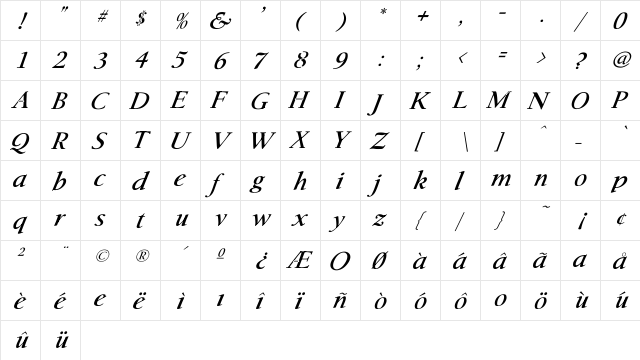
RSJacksonville ITALIC Italic
Design Context for RSJacksonville ITALIC Typeface
RSJacksonville ITALIC takes a measured approach to typography — its balanced proportions and neutral character make it a reliable workhorse for both digital and print work. The dynamic lean of this cut emphasises speed and emphasis in any layout.
Pro Tip: Try RSJacksonville ITALIC for annotation and caption copy alongside an upright companion — the contrast in angle creates a dynamic but ordered typographic system.